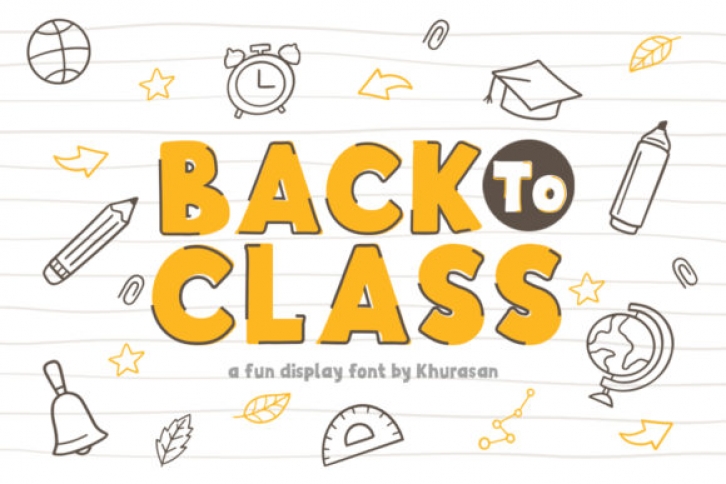
Back to Class is a fun display font with a cheerful theme. This font is suitable for logos, branding, greeting card, poster and any design that you can think of.